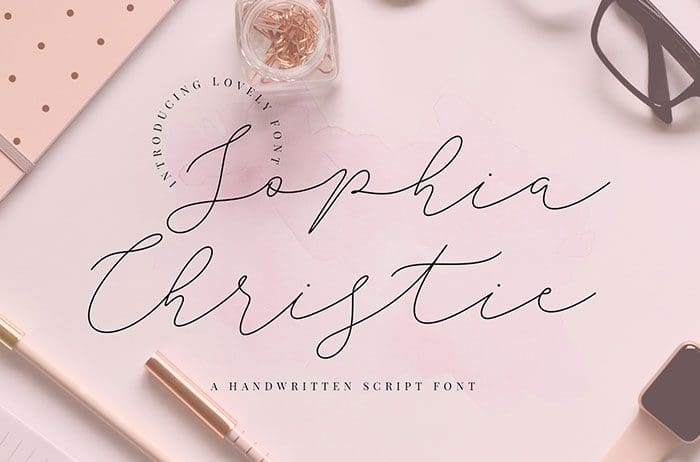
Sophia Christie Script Font
Sophia Christie Script Font is light, lovely signature modern calligraphy font with contemporary, elegant, debonair feeling and sophisticated accents. Thanks to Creatype Studio for sharing this font! Take a look at this portfolio for more of his stunning fonts.